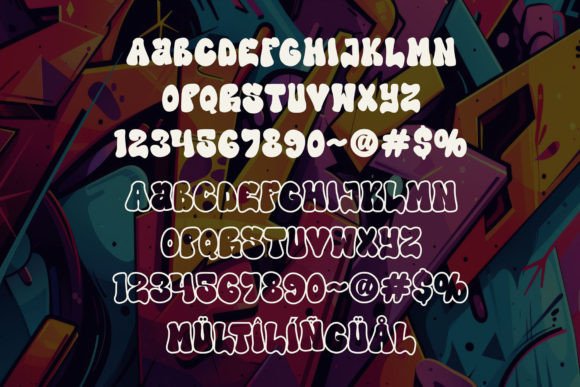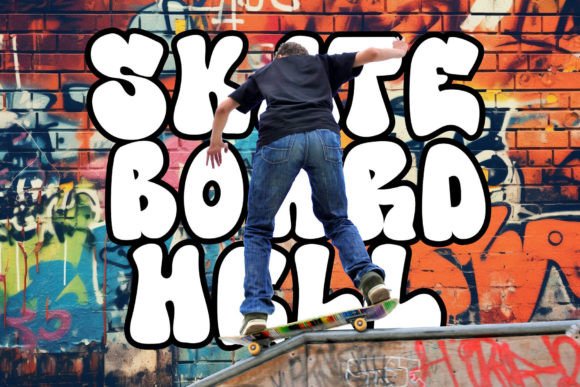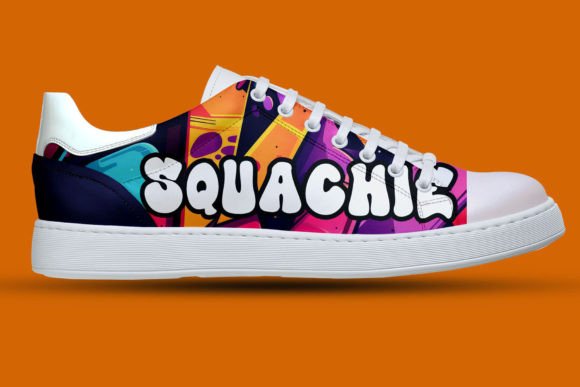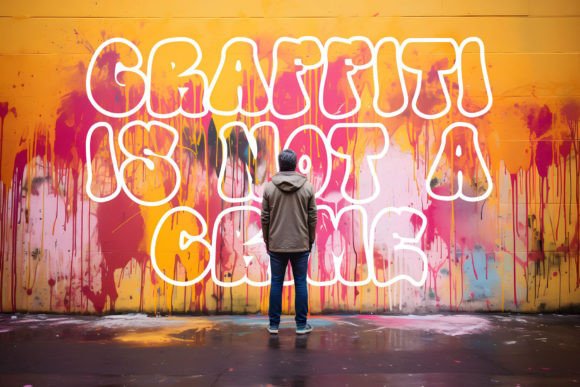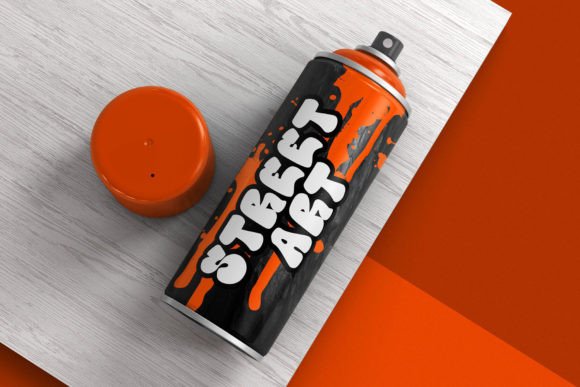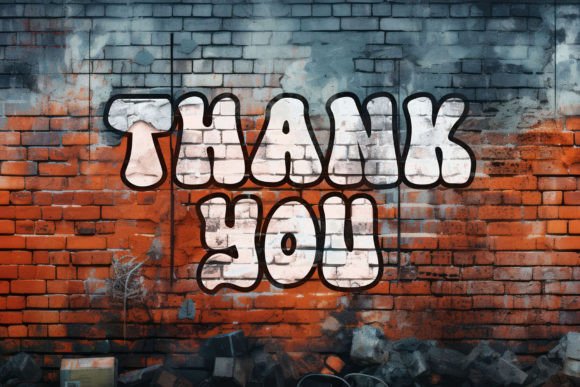
The Urban Edge: How High Damage Font Elevates Your Designs
I’ll never forget the struggle I faced while working on a streetwear brand project. My client wanted a bold, eye-catching logo that screamed urban attitude, but I was stuck with bland, generic fonts that just didn’t cut it. That’s when I stumbled upon High Damage, a game-changing font that infused my designs with a fresh graffiti aesthetic. In this article, I’ll share my experience with High Damage, its unique features, and how to make the most of it in your designs.
First Impressions: A Love Letter to High Damage
High Damage is more than just a font – it’s an experience. This layered graffiti-inspired font combines solid and outline characters, creating a 3D visual impact that demands attention. Here are the things I love about High Damage:
• Urban authenticity: High Damage nails the streetwear vibe, making it perfect for designs that require an edgy, city-centric feel.
• Versatility: With its unique blend of solid and outline characters, High Damage can be used for a wide range of projects, from posters to album art.
• 🔥 Visual impact: The 3D effect created by the layered characters is undeniable, making your designs stand out in a crowded creative landscape.
The Not-So-Perfect: A Few Quirks
While High Damage is an incredible font, it’s not without its limitations. Here are a few things to keep in mind:
• ⚠️ Legibility at small sizes: Due to its intricate design, High Damage can become difficult to read at smaller font sizes. Use it for headlines or larger text elements for maximum impact.
• 🤔 Pairing with other fonts: High Damage’s bold personality can be overwhelming when paired with other fonts. Stick to simple, clean fonts to create visual balance.
The Story Behind High Damage
High Damage was born from the streets, inspired by the raw energy of urban graffiti. Its creator, a passionate designer, sought to capture the essence of city life in a font that would make designs pop. With High Damage, you can bring a touch of that urban edge to your projects.
Font Name High Damage Font
Author Cikareotype
What type of projects is High Damage best suited for? High Damage excels in streetwear designs, music album art, vibrant posters, and any city-centric project that requires an urban attitude.
Is High Damage available in different font weights? High Damage offers a range of font weights, allowing you to experiment with different styles and create visual hierarchy in your designs.
Can I combine High Damage with other fonts? Yes, but be mindful of visual balance. Pair High Damage with simple, clean fonts to create contrast and make your designs pop.